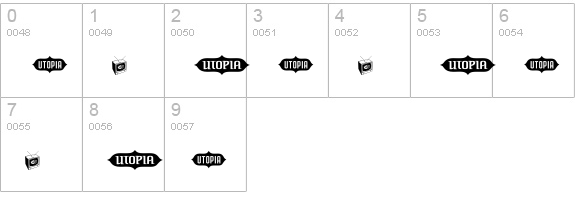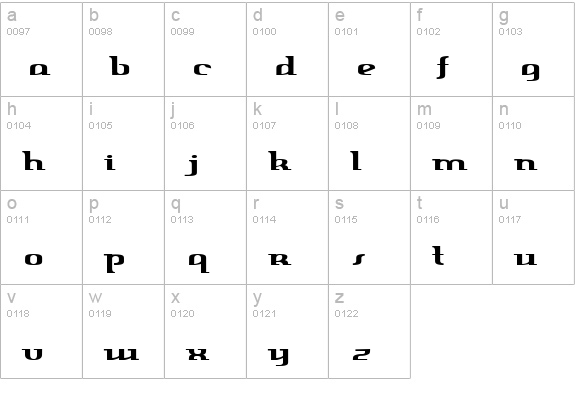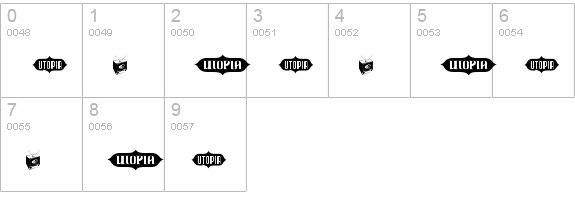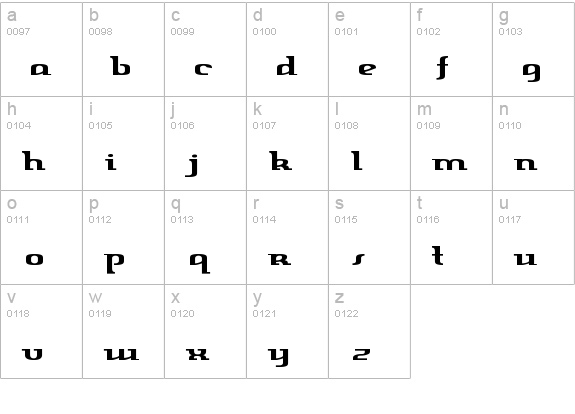
Harper Free Version Font Details
Introducing Harper Free Version, a captivating and versatile font that is here to elevate your design projects to new heights. With its sleek lines and modern yet timeless appeal, Harper Free Version is the perfect choice for any creative endeavor. This font is not only visually stunning but also comes with the added benefit of being freely available to download at FontsMarket.com. Yes, you read that right - Harper Free Version can be yours without any cost! Whether you're a professional designer looking to add a touch of elegance to your latest branding project or a hobbyist searching for a font that stands out from the crowd, Harper Free Version has got you covered. Its clean and legible letterforms make it suitable for a wide range of applications, from logos and headlines to website design and social media graphics. The versatility of Harper Free Version is further amplified by its extensive character set, which includes multiple weights and styles. This allows you to experiment and create unique combinations that perfectly reflect your vision. But the benefits of Harper Free Version don't end there. This font is not only aesthetically pleasing but also incredibly easy to work with. Its well-crafted and professionally designed glyphs ensure a smooth and hassle-free experience, saving you time and effort. So why wait? Experience the beauty and versatility of Harper Free Version today. Download it freely at FontsMarket.com and embark on a design journey that will leave a lasting impression. Whether you're a seasoned professional or just starting out, this font is sure to become an invaluable asset in your creative toolkit.